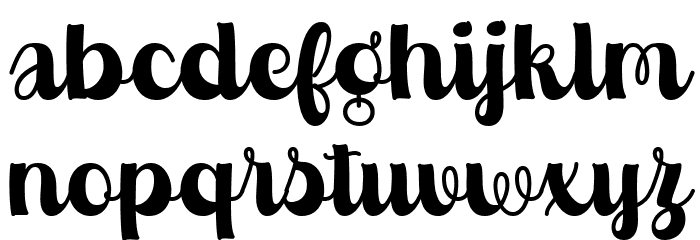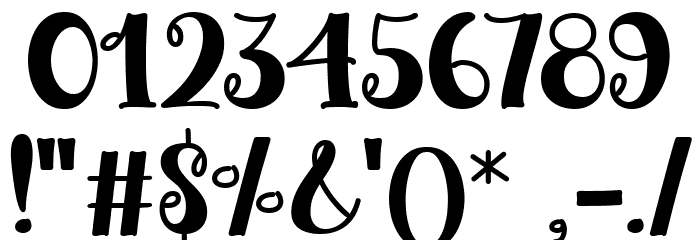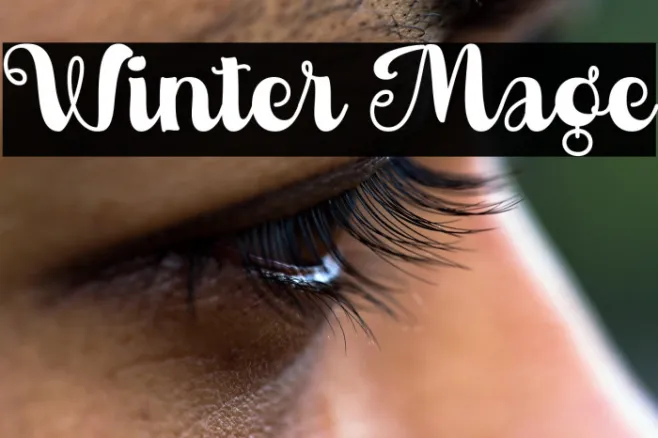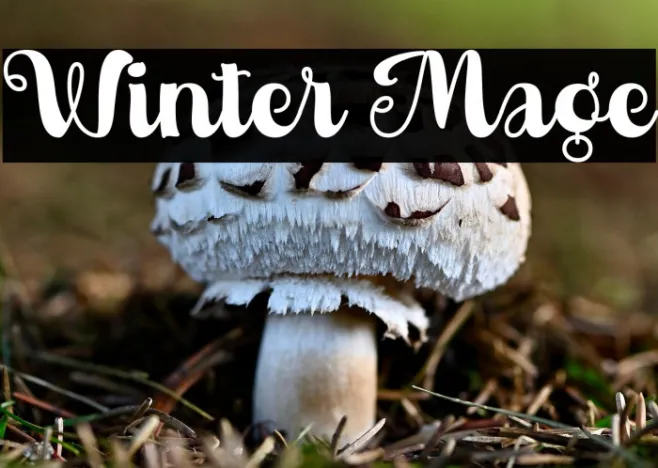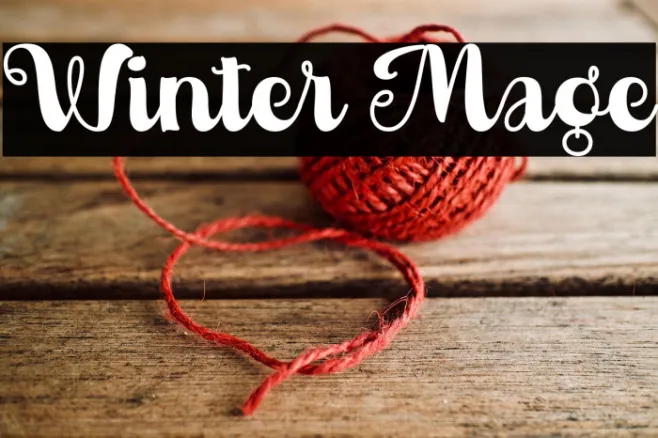
Winter Mage Font
This font features a whimsical and playful style with a handwritten appearance. The characters are bold and have a flowing, cursive quality, with elegant loops and swirls that add a sense of movement and charm. The uppercase letters are particularly decorative, with intricate details that make them stand out. The lowercase letters maintain a consistent style, complementing the uppercase with their own unique flair. The numbers and special characters follow the same design principles, ensuring a cohesive look across all glyphs. This font is perfect for projects that require a touch of elegance and personality.
A whimsical, bold, and decorative handwritten font with elegant loops and swirls.
- Proposed Projects: Ideal for wedding invitations, greeting cards, branding, and decorative headlines.
- Use Case: Headlines, Logos, Invitations